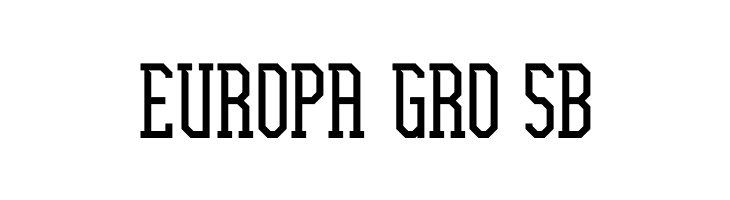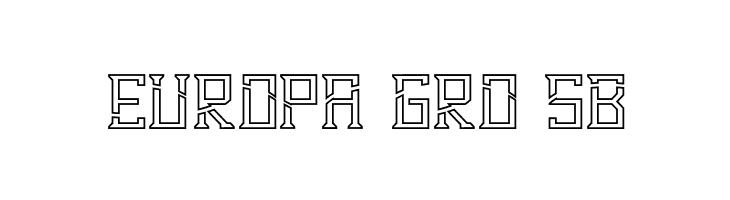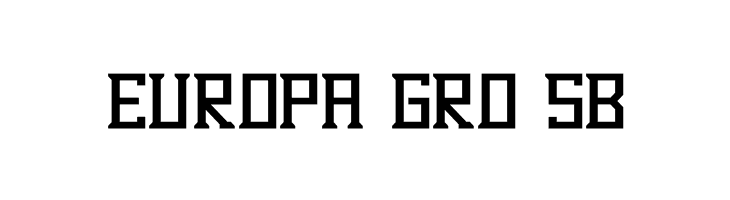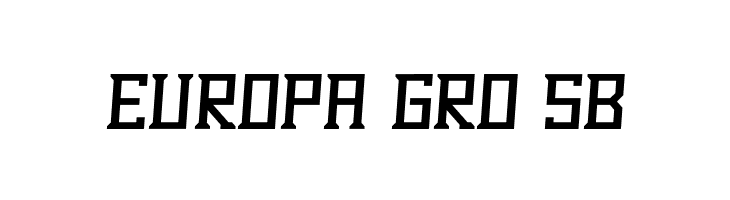
A bold, geometric font with sharp angles and a modern flair.
A modern outline font with geometric and clean letterforms.
A modern serif font with geometric shapes and a vintage touch.
A bold, stencil-style font with geometric precision and industrial appeal.
A bold, shadowed font with a strong, geometric design.
A bold slab serif font with strong, block-like serifs and a cohesive design.
A bold, outlined geometric font with a modern and clean appearance.
A modern, outlined font with a dash pattern and geometric design.
A bold, angular font with a modern, industrial feel.
A modern, angular italic font with a bold and dynamic style.